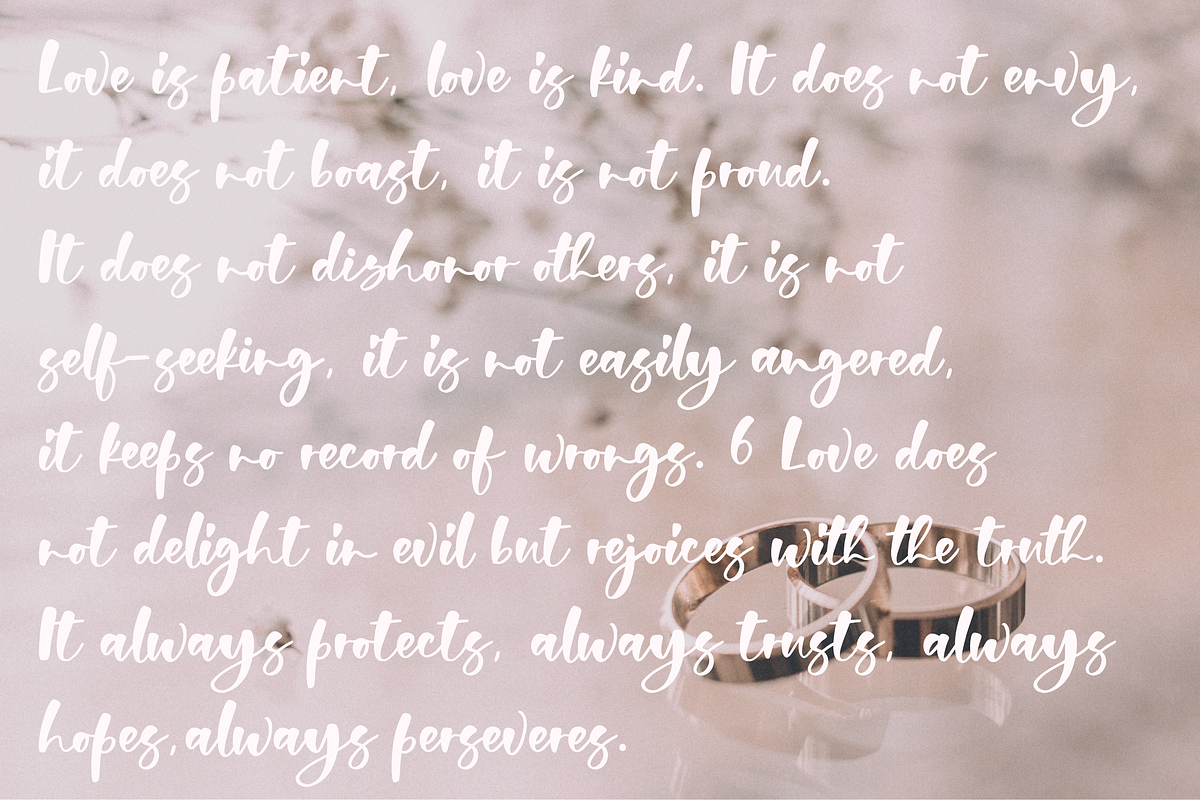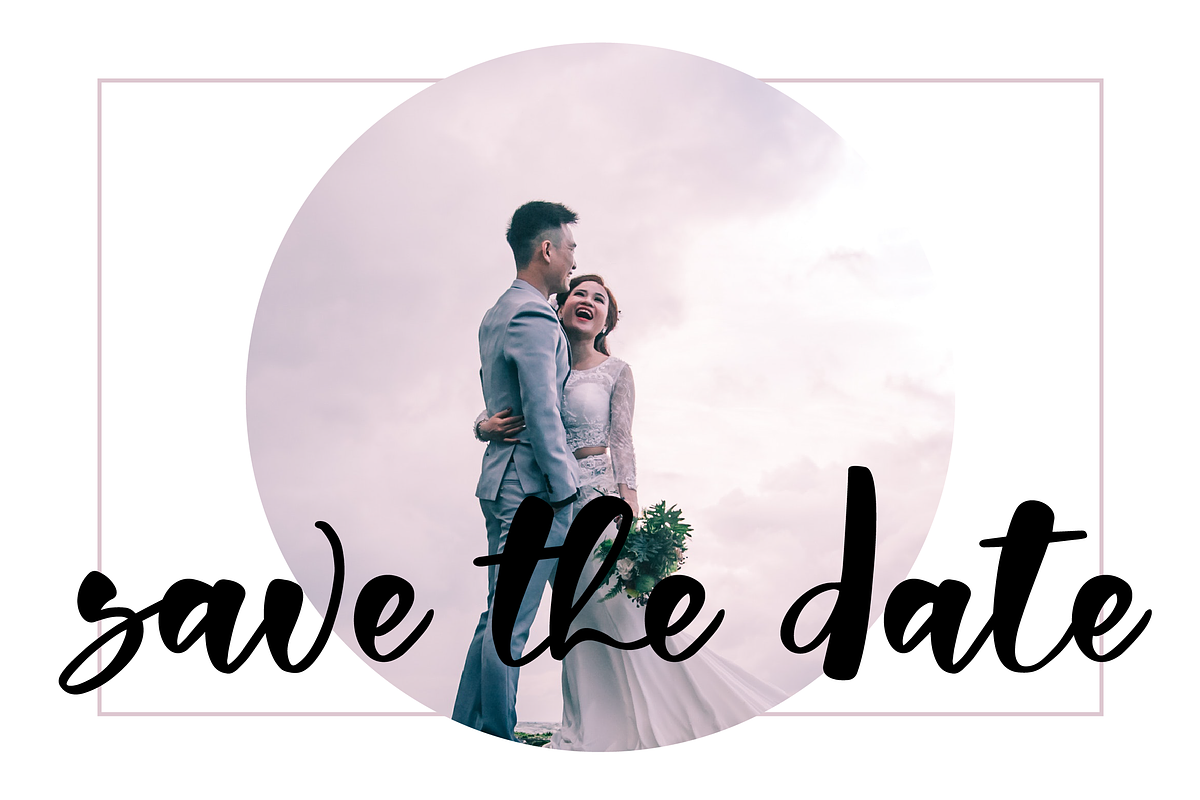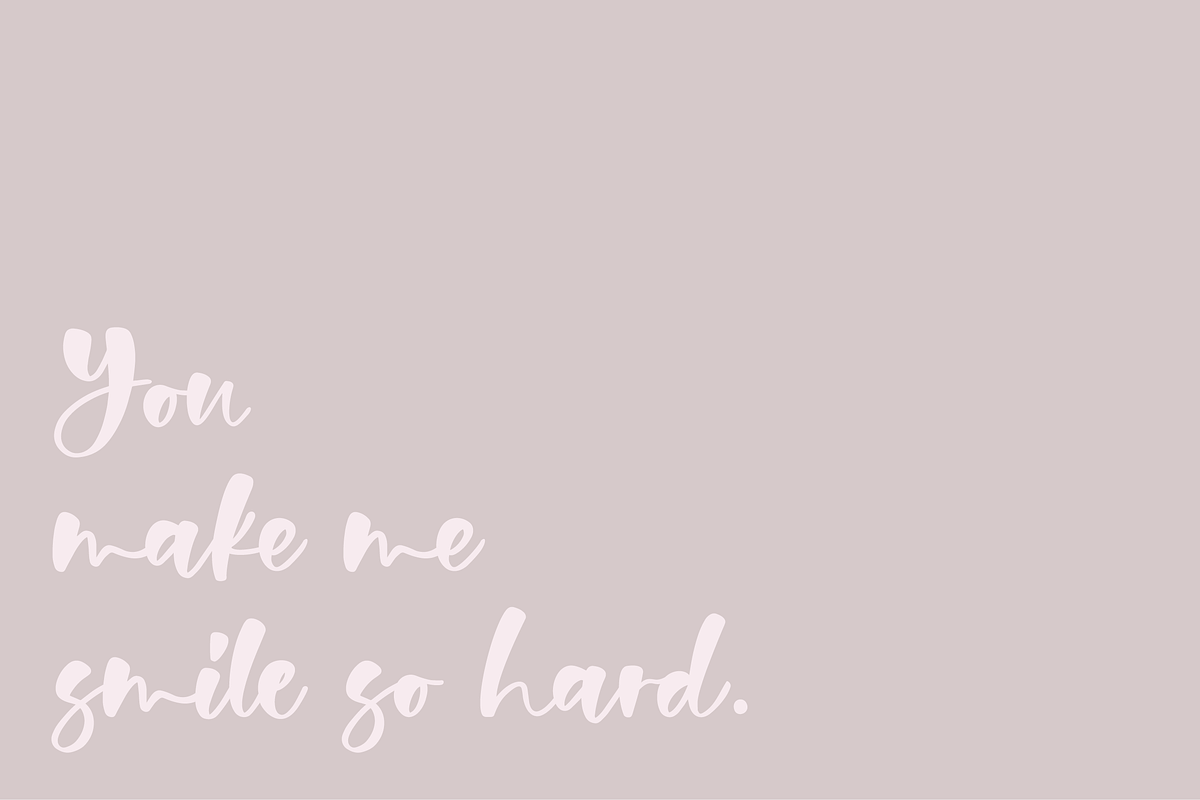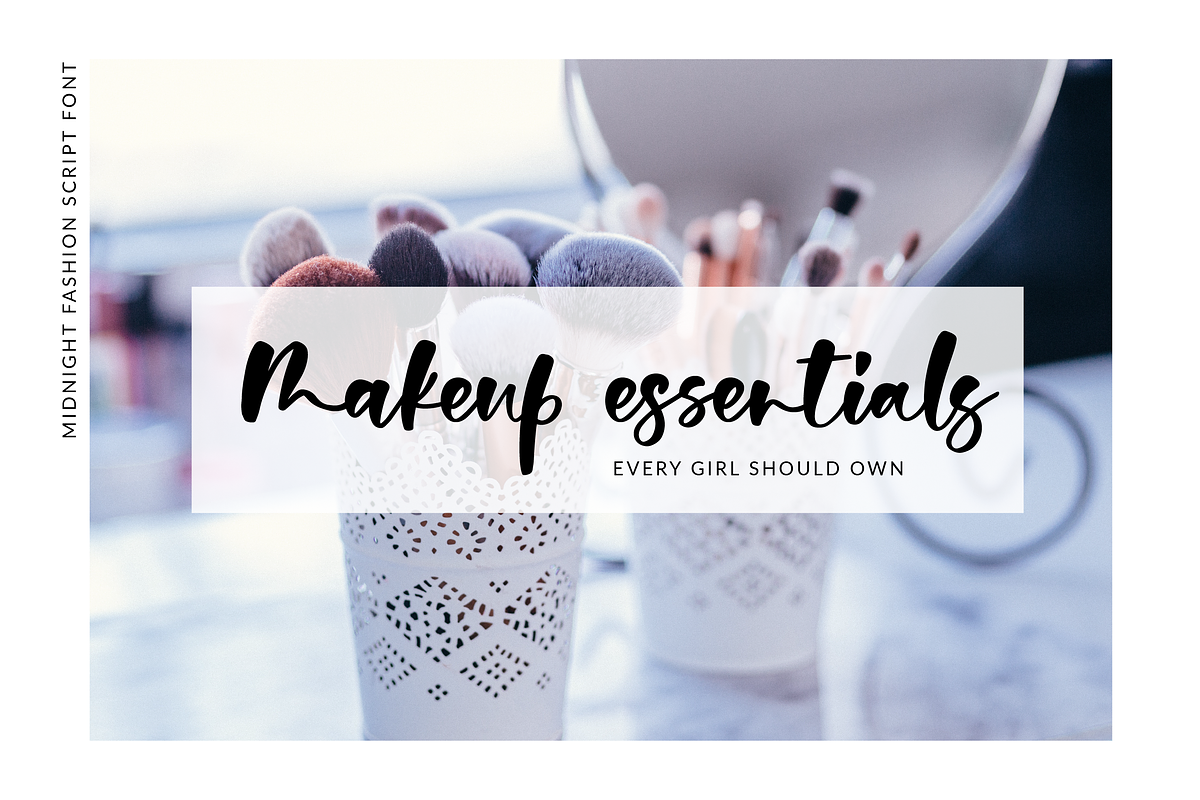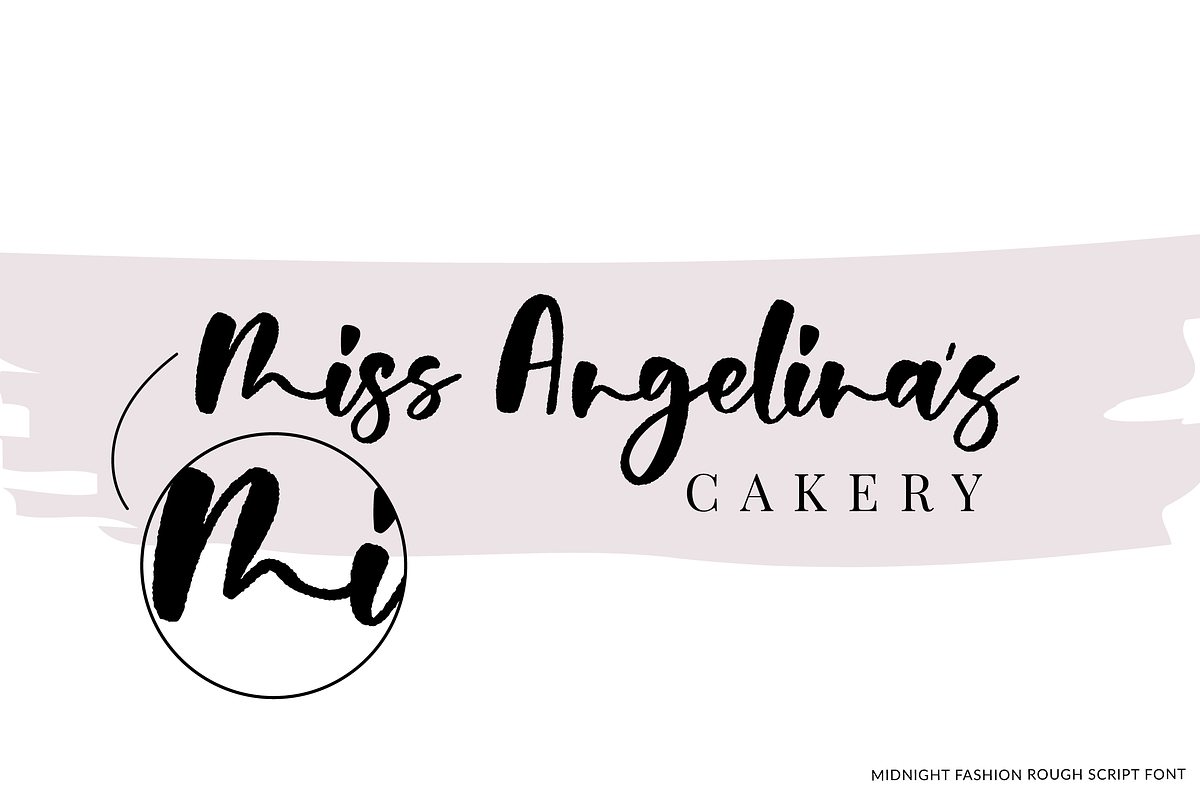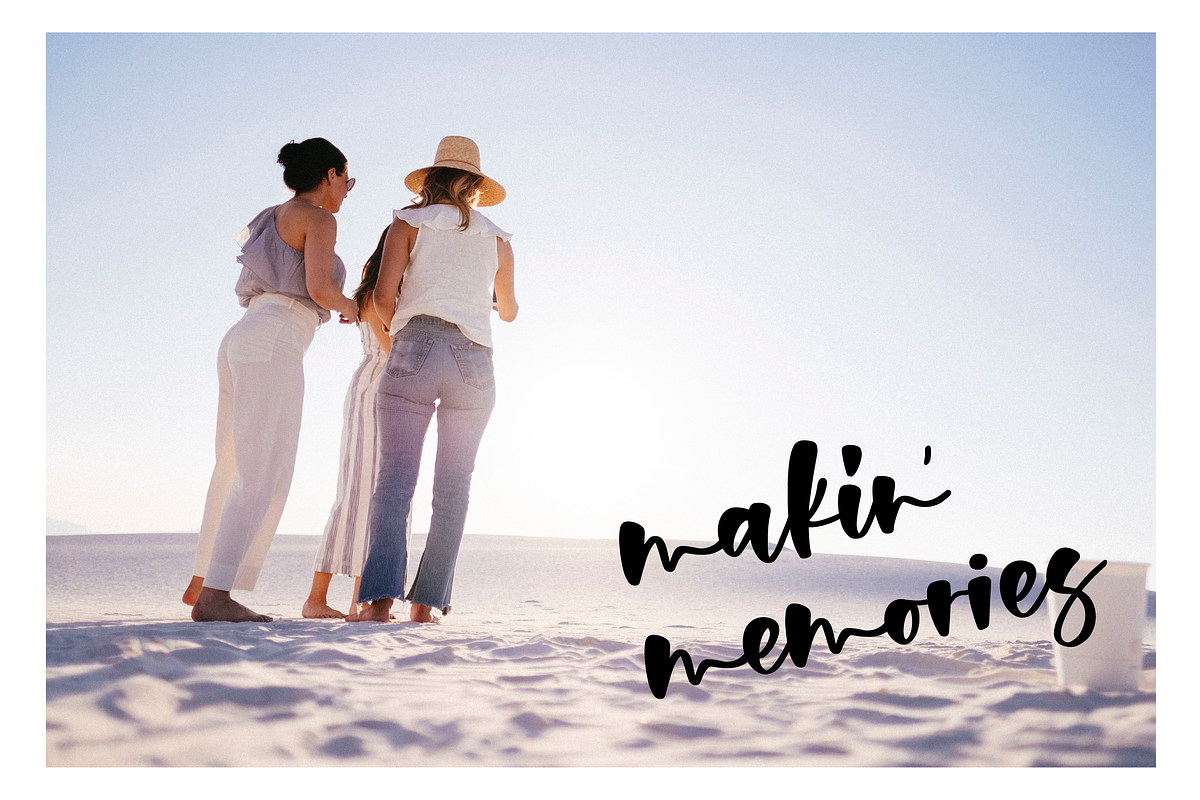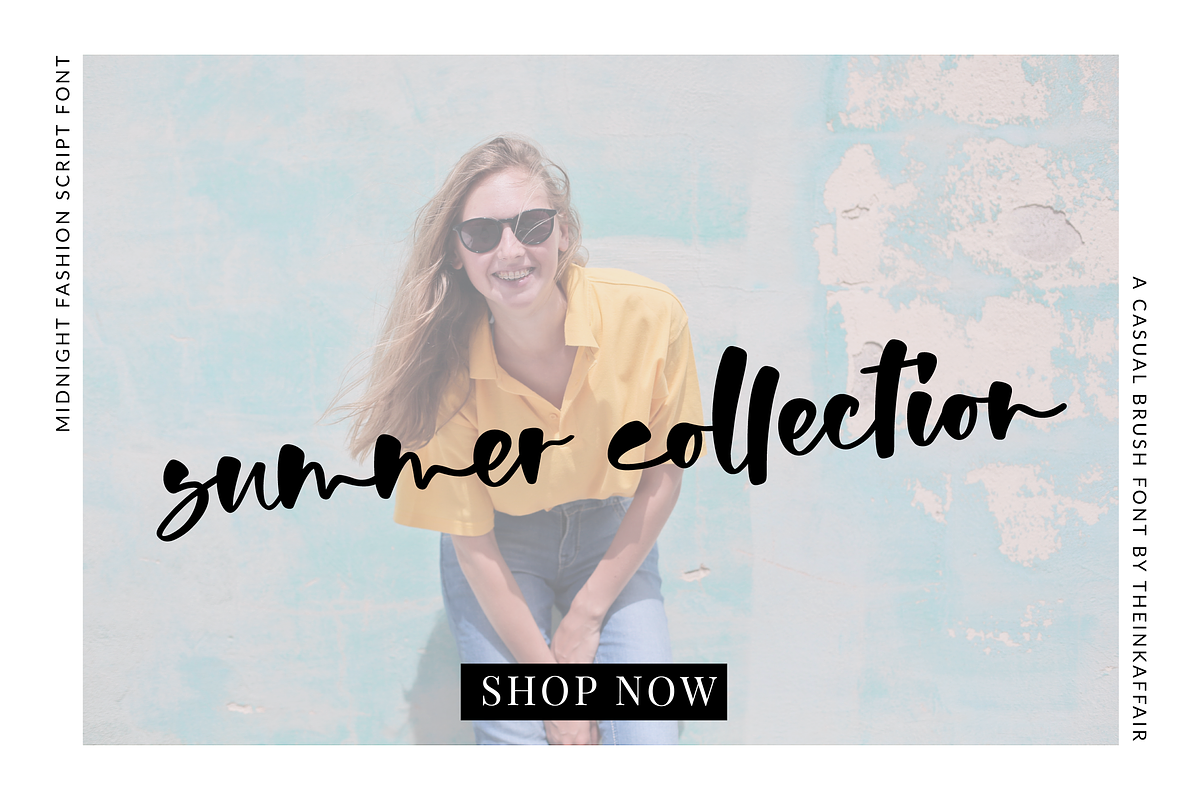
Midnight Fashion Script Font
Introducing Midnight Fashion, a playful brush script font that comes in two styles, smooth and textured and is perfect for branding and logo design, wedding stationery, social media posts, blogs, magazines, greeting cards and more!
Midnight Fashion comes with a full set of alternate lowercase letters and is PUA encoded which means that you will be able to access all characters from any application and you don’t need to have softwares like Illustrator or Photoshop to access all extra characters.
Midnight Fashion Font - a casual brush font with a smooth clean look, perfect for all design projects as well as craft projects involving svg cut files.
- Midnight Fashion Rough Font - a textured version of the font with rough edges.